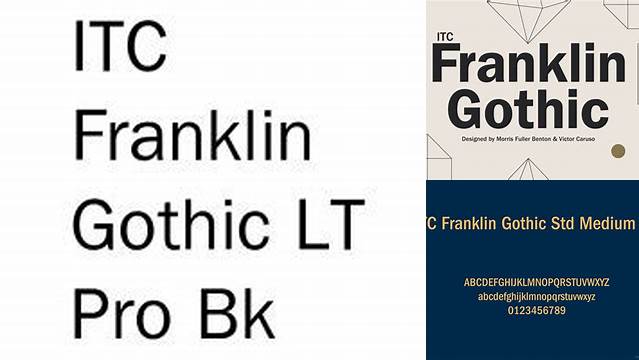
H2: Understanding the ITC Franklin Gothic Font: A Deep Dive
So, what exactly is the ITC Franklin Gothic font? Well, first off, it's a sans-serif typeface. This means it doesn't have those little decorative strokes (serifs) at the end of the letter strokes. It was designed by Morris Fuller Benton and was first released by American Type Founders in 1904. However, the ITC version, ITC Franklin Gothic, is a more modern take. It was released by International Typeface Corporation, and it comes in a range of weights and styles, from light to heavy, condensed to extended. This flexibility makes it a versatile font, suitable for a wide range of design projects. It's known for its clean lines, strong presence, and readability, even at smaller sizes. Think about it: you've likely seen this font everywhere. From headlines in magazines and newspapers to website designs and even logos. It's a classic, reliable choice that conveys a sense of strength, modernity, and clarity. It’s a go-to for designers because it’s a workhorse, reliable, and adaptable. Understanding its history and characteristics can help you make informed decisions about how to use it in your own projects. It's not just about downloading a font; it's about understanding the design principles behind it and how to make the most of them.
Furthermore, the ITC Franklin Gothic font is often associated with a sense of authority and professionalism. Its bold weights command attention, making it perfect for headlines and titles. The lighter weights are ideal for body text, ensuring readability while maintaining a clean, modern aesthetic. The versatility of the font family allows designers to create a cohesive visual identity across various media. You can use different weights and styles to create visual hierarchy and draw the reader's eye to the most important information. The font's ability to adapt to different contexts is a key reason for its enduring popularity. So whether you're designing a website, creating marketing materials, or simply working on a personal project, ITC Franklin Gothic is a great choice. Its timeless design and adaptability make it a valuable asset in any designer's toolkit. Understanding the font’s characteristics, history, and versatility can empower you to make effective design choices, ensuring that your message is delivered with clarity and impact.
H2: ITC Franklin Gothic Font: Uses and Applications in Design
So, you've got the ITC Franklin Gothic font. Now what can you do with it? Well, a ton! This font is super versatile, making it a favorite among designers. First and foremost, it's fantastic for headlines and titles. Its bold weights grab attention and are perfect for making important information stand out. It also works wonders for body text. Its clean, readable design ensures that your text is easy to read, even in long paragraphs. The clear and legible nature of the ITC Franklin Gothic font is very effective in both print and digital media. It’s a top choice for websites, blogs, and digital documents. It is also commonly used in print materials like brochures, magazines, and books. In branding and logo design, ITC Franklin Gothic is a solid choice. Its professional and timeless look makes it ideal for creating brand identities. In advertising and marketing, ITC Franklin Gothic is used in various promotional materials, from posters and flyers to social media graphics. Its clear, straightforward design helps to communicate the message effectively. Think about the brands you see every day, chances are you have seen the font in action! The flexibility of the font family, with its range of weights and styles, allows designers to create a cohesive visual identity across various media.
When using the ITC Franklin Gothic font, always consider your target audience and the purpose of the design. Choose the right weight and style to match the tone and message you want to convey. Using the font in the right context can significantly improve the overall impact of your design. Always try to maintain consistency throughout your design. Using the same font family, including different weights and styles, is important for consistency in your design projects. This helps create a cohesive and professional look. Also, always pay attention to spacing and kerning to ensure readability. The layout of text is just as important as the choice of the font itself. Furthermore, make sure the font is legible at various sizes and on different devices. It's important to choose a font that looks good at different sizes, especially for web design, where the font needs to be readable on different devices, from small screens to large monitors. You can use the font in a variety of applications. Just make sure to keep these things in mind while designing. That way, you can use the ITC Franklin Gothic font to its full potential.